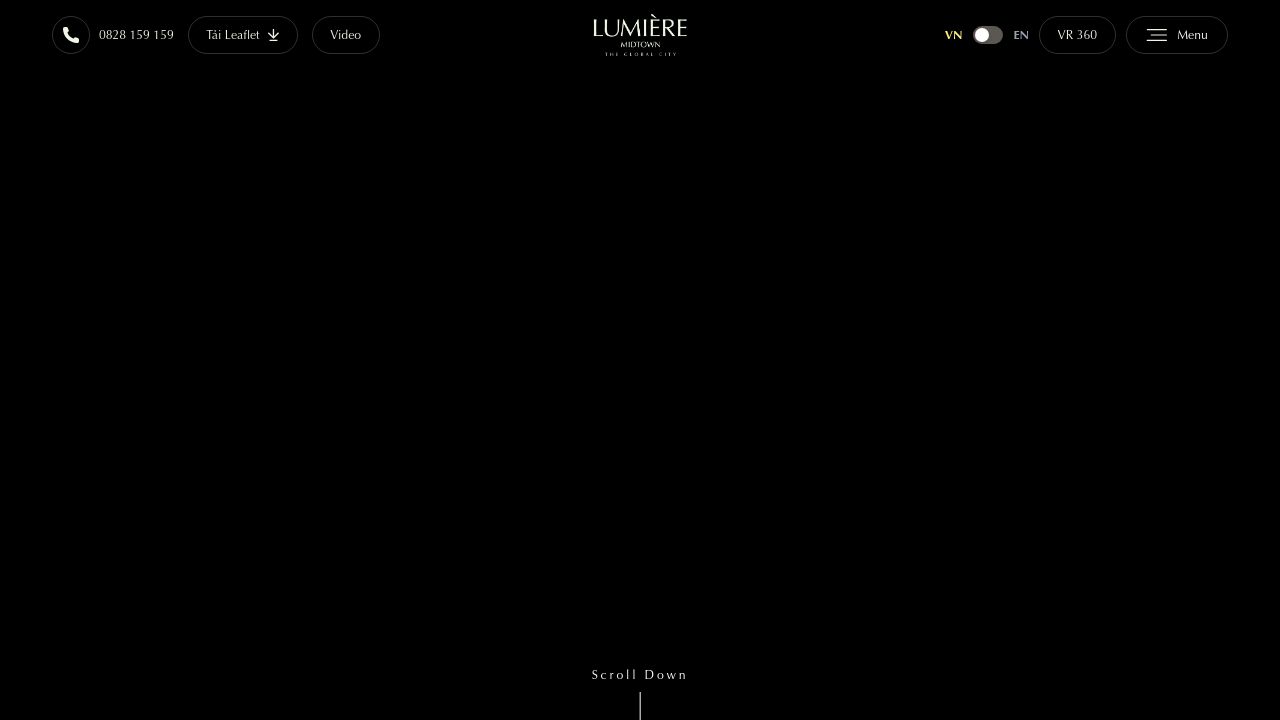
At masterisehomes.com, the visual identity is underscored by a selection of distinct typefaces that resonate with their target audience in real estate. The use of SF Pro Text lends clarity and versatility, while Optima adds a touch of sophistication. Custom fonts like swiper-icons and hgi-stroke-rounded enhance the site's unique character, ensuring that the typography not only conveys information but also embodies the brand's commitment to quality and innovation in luxury living.
masterisehomes.com primarily uses SF Pro Text, Optima, swiper-icons, and hgi-stroke-rounded. These fonts create a distinctive visual style that aligns with the brand's identity.
SF Pro Text offers a modern feel similar to Roboto, while Optima stands out with its unique character compared to standard sans-serif fonts like Arial. The custom fonts provide a distinct edge.
masterisehomes.com employs a consistent weight of 400 for its primary fonts, ensuring readability across all devices. This choice maintains a cohesive visual experience throughout the site.